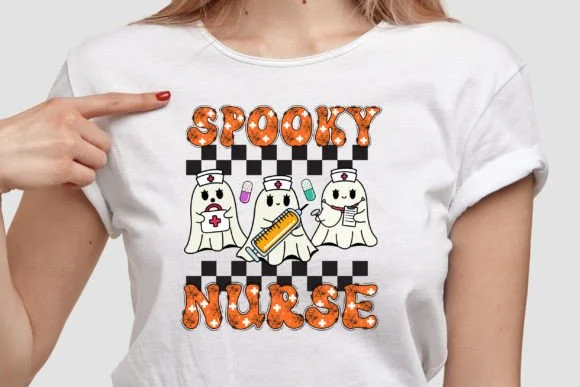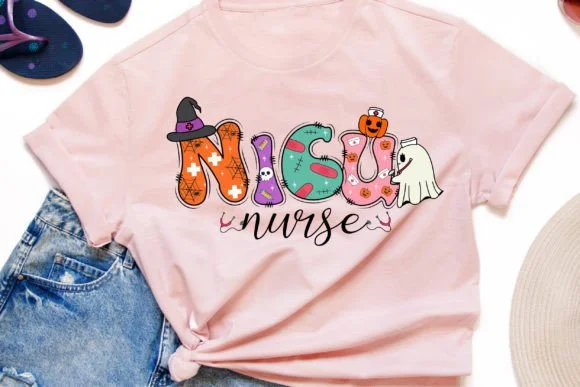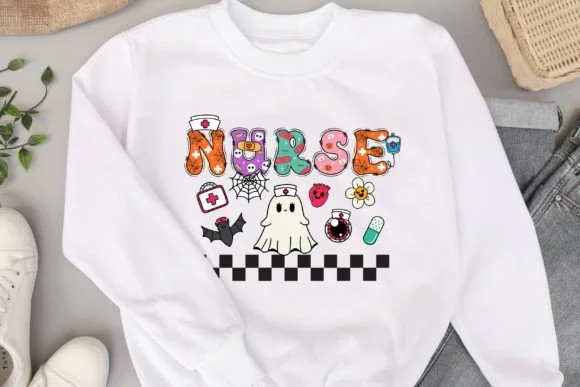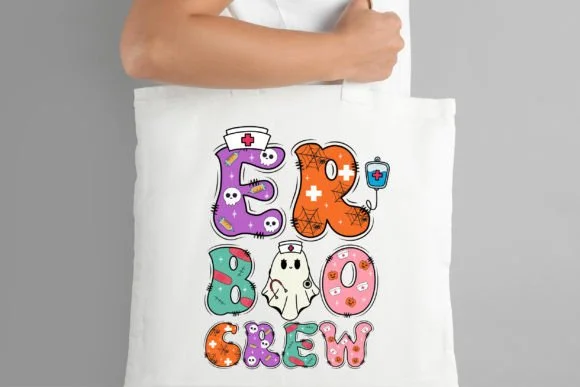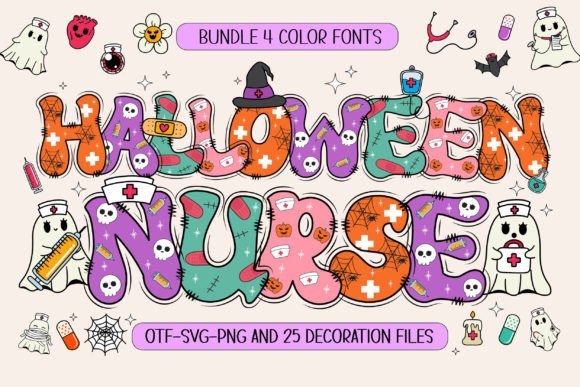
Halloween Nurse Font
This medical font is perfect for nurse Halloween costumes, medical-themed horror parties, hospital Halloween decorations, healthcare worker Halloween celebrations, zombie nurse events, medical horror branding, healthcare Halloween marketing, spooky medical displays, nurse costume contests, and medically themed Halloween messaging materials.
Halloween Nurse Font is exciting because it combines the trusted professionalism of healthcare with the spine-tingling atmosphere of Halloween through its clinically crafted letterforms that capture the unsettling transformation of healing environments into sources of supernatural fear. The font features precise, medical characters with healthcare proportions and clinical details that evoke the eerie atmosphere of abandoned hospitals and midnight medical facilities where healing becomes horror, incorporating stethoscope-inspired flourishes and medical elements that create typography as professionally unsettling as the sound of footsteps echoing through empty hospital corridors. Each letter showcases the disturbing contrast between care and fear that makes medical horror themes so psychologically effective, with sterile curves and clinical accents that transform ordinary text into expressions of medical terror that capture the way places of healing can become sources of primal fear when darkness falls and supernatural forces invade spaces meant for recovery and care.
The Halloween Nurse Font family includes medically inspired variations: Regular, Bold, Light, Clinical, and Emergency versions. The collection features special medical elements including cross accents, syringe flourishes, medical chart details, and healthcare ornaments. Additional components include medical borders, clinical frames, healthcare decorations, and professionally spooky ornamental designs that enhance the font's Halloween nurse appeal and create cohesive medical horror themes.
Healthcare professionals and medical horror enthusiasts will find Halloween Nurse Font to be an exceptional resource for creating authentically clinical Halloween communications that celebrate the dedication of healthcare workers while embracing the unsettling potential of medical environments transformed by Halloween magic. This professionally crafted font transforms ordinary Halloween messaging into medical expressions that resonate with audiences who appreciate both the heroic reality of healthcare work and the spine-tingling possibilities of medical horror scenarios.
The typeface includes comprehensive character support with medical styling that maintains excellent readability while conveying the clinical precision and healthcare atmosphere of nurse-themed Halloween celebrations. The font's professionally spooky design ensures clinically effective results across both healthcare Halloween applications and medical horror productions.
Perfect for healthcare Halloween parties, nurse costume events, medical-themed celebrations, and professionally spooky seasonal marketing, this font delivers clinically compelling visual impact that communicates healthcare dedication, medical precision, and the unsettling transformation that makes medical environments such psychologically effective settings for Halloween horror and supernatural medical themes.